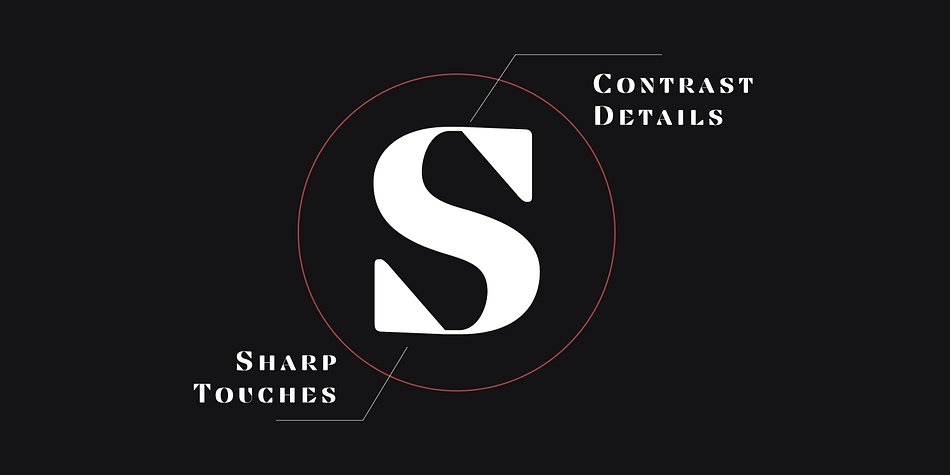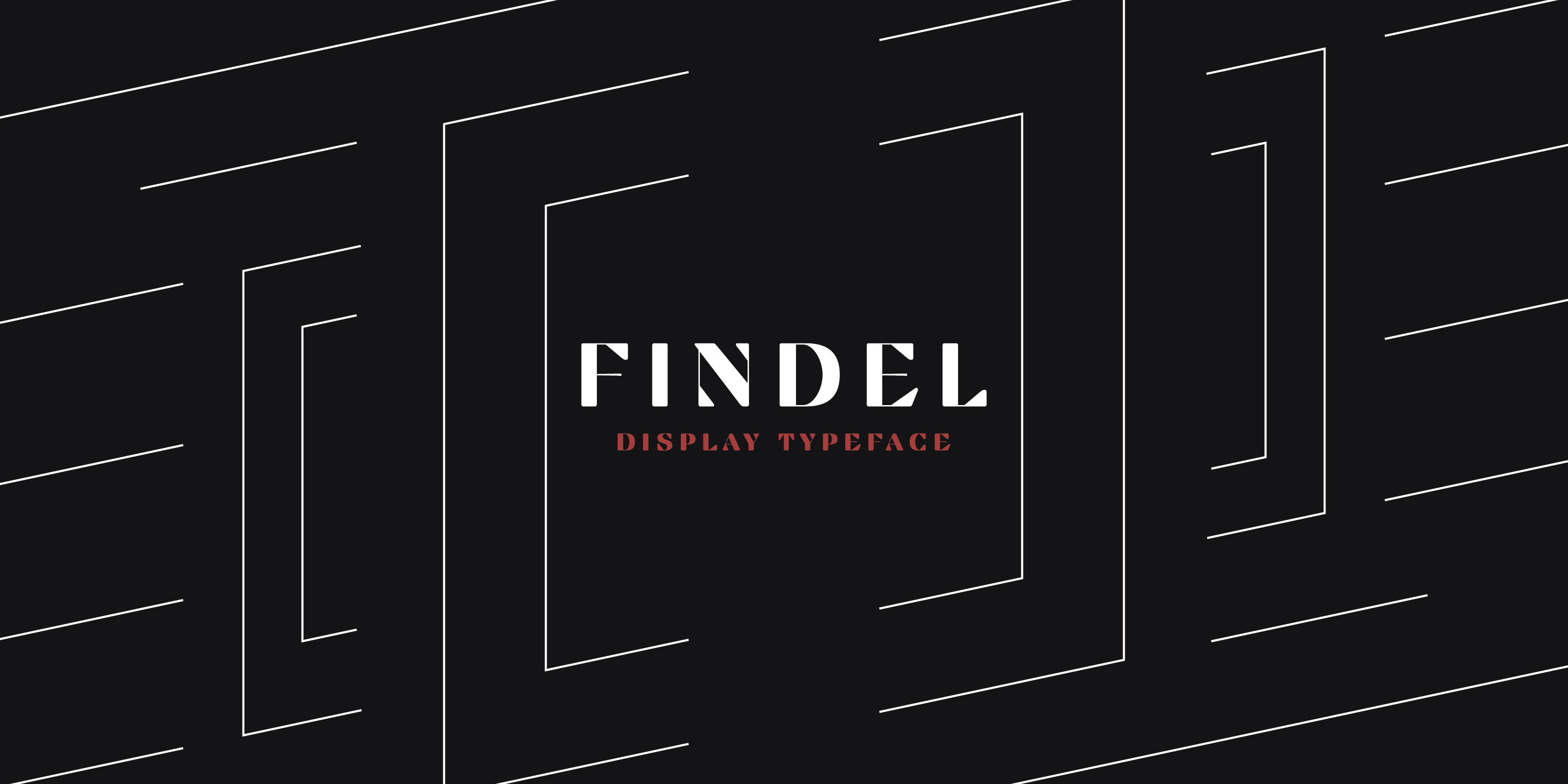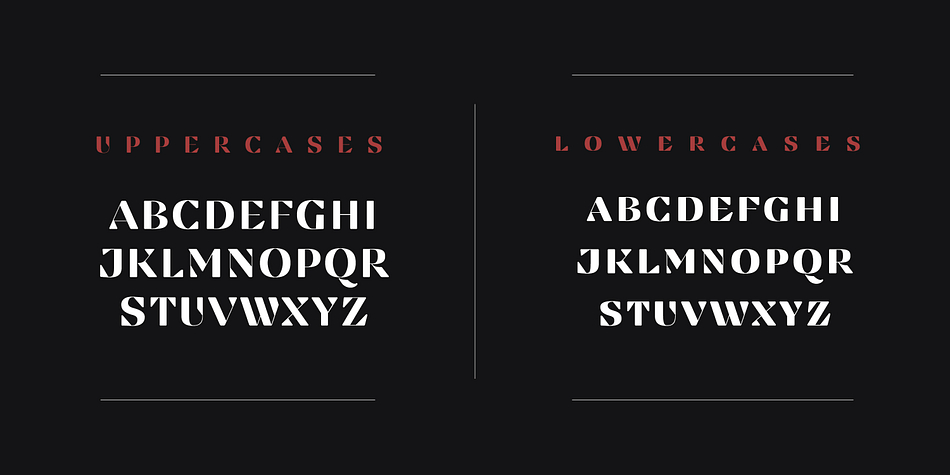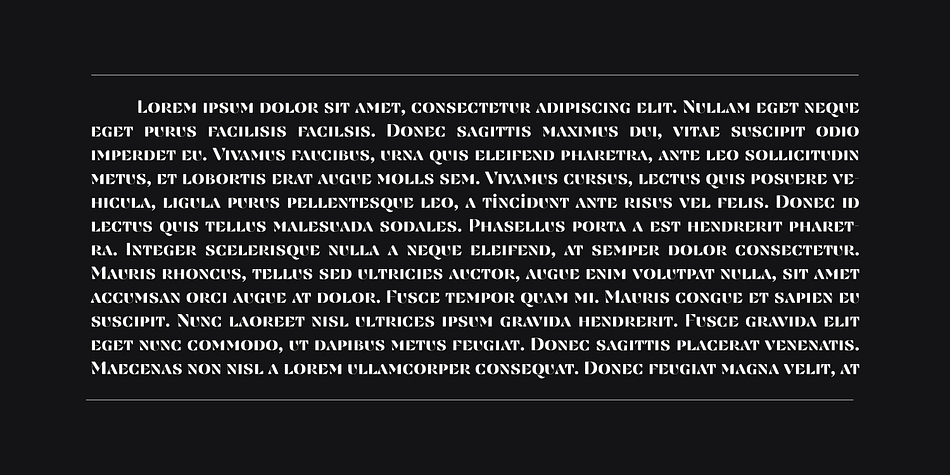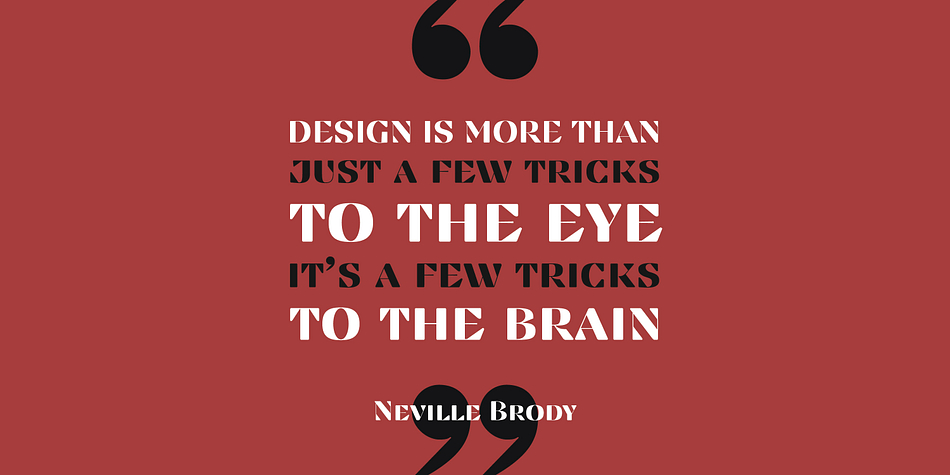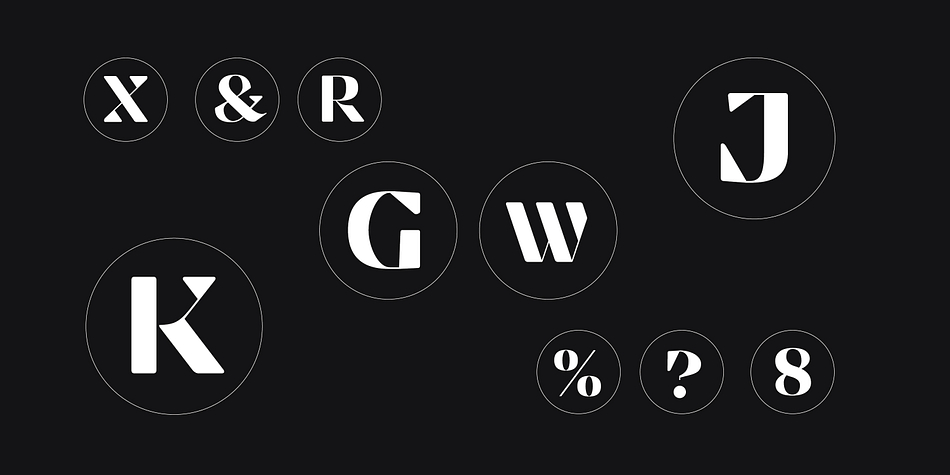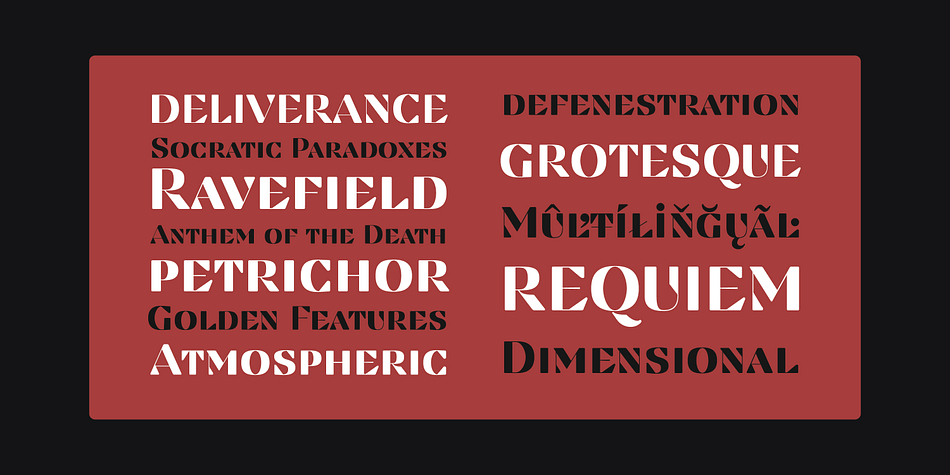
Designed by Ufuk Aracıoğlu, Findel Display is a display serif and art deco font published by Horizon Type.
Findel is rounded serif typeface designed for display use on commercial fields.
Foundry | Horizon Type |
Styles | Art Deco, Display Serif |
Designer | Ufuk Aracıoğlu |